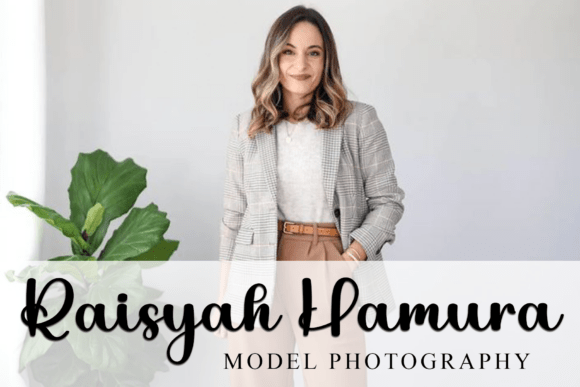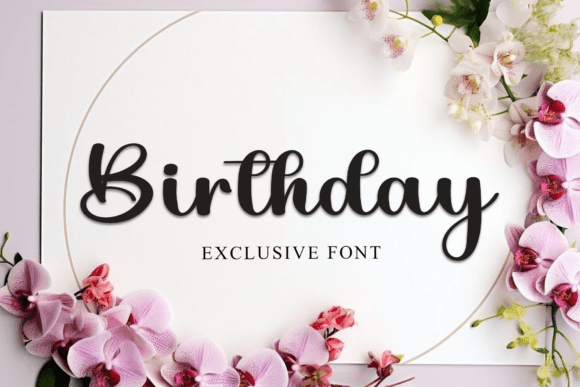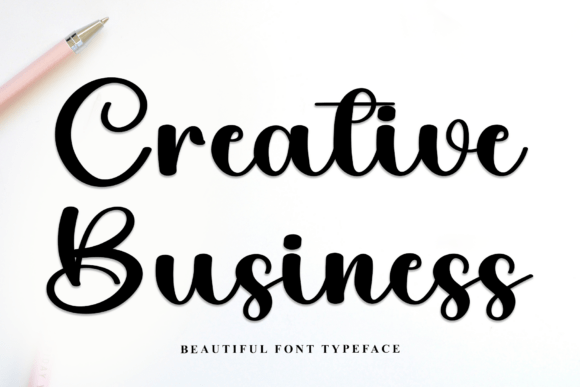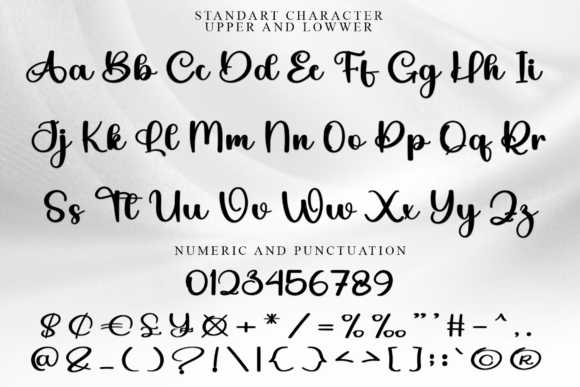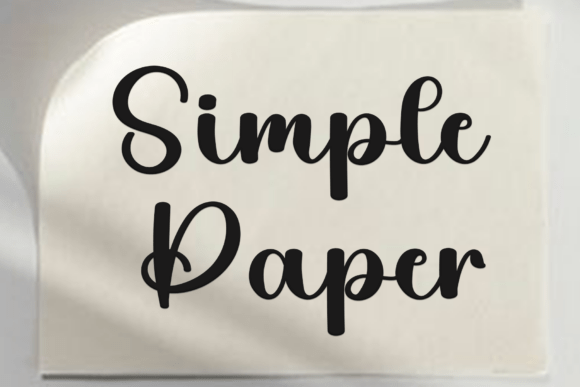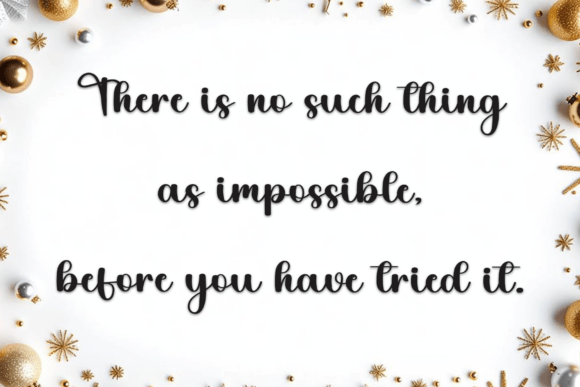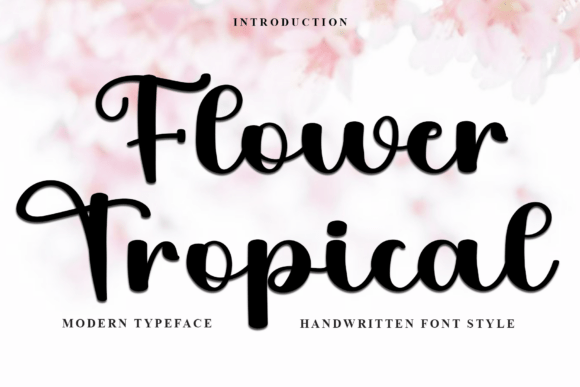
Introducing Flower Tropical Font: A Festive and Whimsical Typeface for Holiday Designs
Are you looking for a font that captures the essence of the holiday season? Do you want to add a touch of magic to your designs, greeting cards, and gift tags? Look no further than Flower Tropical Font, a merry and decorative typeface that brings a cheerful and nostalgic ambiance to your words.
The Spirit of the Holiday Season in a Font
Flower Tropical Font is a festive and playful typeface that embodies the spirit of the holiday season. Its decorative elements and whimsical flair make it perfect for designers and crafters who want to create enchanting and memorable designs. Whether you’re working on holiday-themed projects, greeting cards, or gift tags, this font is sure to add a touch of wonder and excitement to your typography.
Key Features of Flower Tropical Font
So, what makes Flower Tropical Font so special? Here are some of its key features:
- Decorative Elements: The font features beautiful decorative elements that add a touch of elegance and sophistication to your designs.
- Whimsical Flair: The font’s whimsical flair makes it perfect for creating playful and eye-catching designs.
- Festive and Merry: The font’s festive and merry design makes it perfect for holiday-themed projects and designs.
Flower Tropical Font is perfect for designers and crafters who want to create beautiful and memorable designs. Whether you’re working on:
- Greeting Cards: Add a touch of magic to your holiday greeting cards with this festive font.
- Gift Tags: Create beautiful and personalized gift tags with Flower Tropical Font.
- Holiday-Themed Projects: Perfect for creating holiday-themed projects, such as Christmas decorations, Halloween designs, and more.
Why Choose Flower Tropical Font?
So, why choose Flower Tropical Font for your designs? Here are just a few reasons:
- Unique and Eye-Catching: The font’s unique and eye-catching design makes it perfect for creating memorable designs.
- Festive and Fun: The font’s festive and fun design makes it perfect for holiday-themed projects and designs.
In conclusion, Flower Tropical Font is a beautiful and festive typeface that captures the spirit of the holiday season. With its decorative elements, whimsical flair, and PUA encoding, it’s perfect for designers and crafters who want to create enchanting and memorable designs. Whether you’re working on holiday-themed projects, greeting cards, or gift tags, this font is sure to bring a touch of magic to your typography. So why wait? Download Flower Tropical Font today and let your typography shine with the magic of Beautiful Font!
Key Benefits:
- Festive and merry typeface perfect for holiday designs
- Decorative elements and whimsical flair add a touch of enchantment
- Perfect for greeting cards, gift tags, and holiday-themed projects